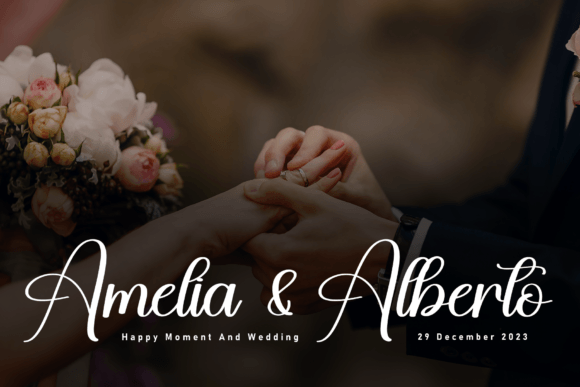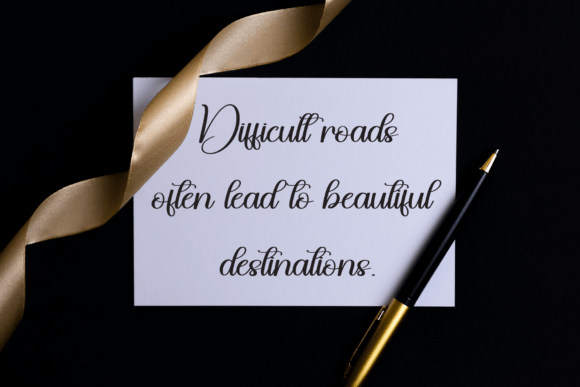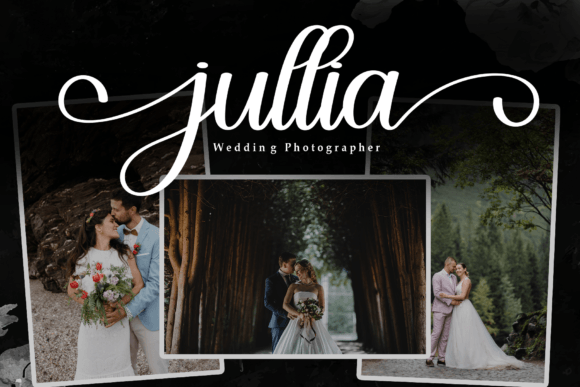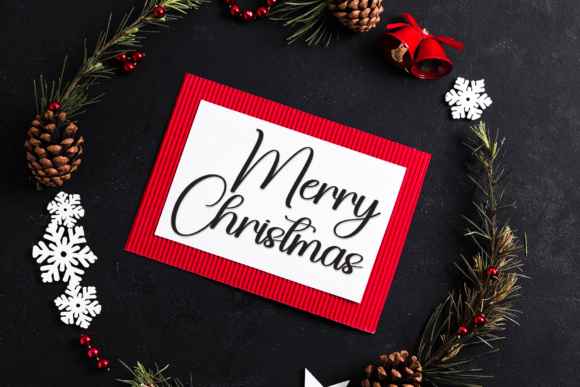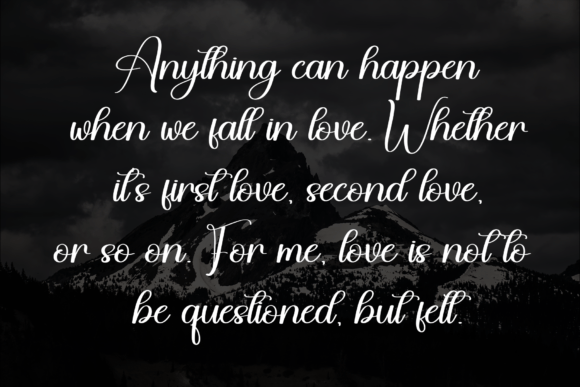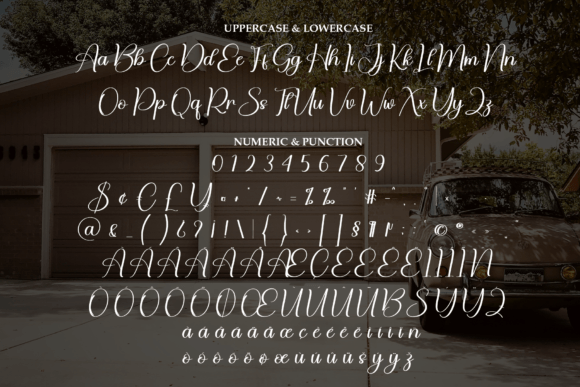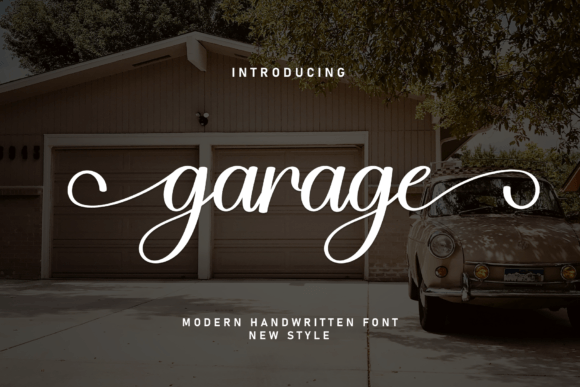
Introducing Garage Font: Elevate Your Creativity with Elegance
Are you a designer, crafter, or DIY enthusiast looking for a font that can add a touch of magic to your creative projects? Look no further than Garage Font, a beautiful script font designed to bring elegance and sophistication to your work. In this article, we’ll explore the features and benefits of Garage Font, and show you how it can help you turn your ideas into stunning works of art.
What is Garage Font?
Garage Font is a carefully crafted script font that combines the charm of traditional calligraphy with the versatility of modern typography. This magical font is perfect for anyone looking to add a touch of elegance to their designs, whether it’s for a Instagram post, a DIY project, or a professional branding campaign.
Key Features of Garage Font
• Elegant and Sophisticated: Garage Font boasts a unique and refined design that exudes elegance and sophistication.
• Magical Touch: The font’s subtle curves and swashes add a touch of magic to your designs, making them stand out from the crowd.
• Versatile: Garage Font is perfect for a wide range of creative projects, from Instagram posts and DIY crafts to professional branding and advertising.
Uses for Garage Font
Garage Font is an incredibly versatile font that can be used for a wide range of creative projects. Here are some ideas to get you started:
• Instagram Posts: Add a touch of elegance to your Instagram posts and stories with Garage Font.
• DIY Projects: Use Garage Font to create beautiful calligraphy scripts for your DIY projects, such as handmade cards, gift tags, and home decor.
• Branding and Advertising: Garage Font is perfect for professional branding and advertising campaigns, adding a touch of sophistication and elegance to your marketing materials.
• Stationery and Invitations: Create beautiful stationery and invitations with Garage Font, perfect for weddings, parties, and special occasions.
Why Choose Garage Font?
With so many fonts available, why choose Garage Font? Here are just a few reasons why Garage Font stands out from the crowd:
• Unique Design: Garage Font boasts a unique and refined design that will set your creative projects apart from the rest.
• High-Quality: The font is carefully crafted to ensure high-quality and consistency, making it perfect for professional use.
Tips for Using Garage Font
Here are some tips for getting the most out of Garage Font:
• Experiment with Different Sizes: Garage Font looks great in a variety of sizes, so don’t be afraid to experiment and find the perfect size for your project.
• Play with Colors: The font looks great in a range of colors, so try experimenting with different colors to add depth and interest to your design.
• Mix and Match: Combine Garage Font with other fonts and design elements to create a unique and eye-catching design.
Garage Font is a magical script font that can add a touch of elegance and sophistication to your creative projects. With its unique design, versatility, and user-friendly features, it’s perfect for designers, crafters, and DIY enthusiasts. Whether you’re looking for fonts for Instagram or calligraphy scripts for DIY projects, Garage Font is the perfect choice. So why wait? Download Garage Font today and start turning your creative ideas into stunning works of art!